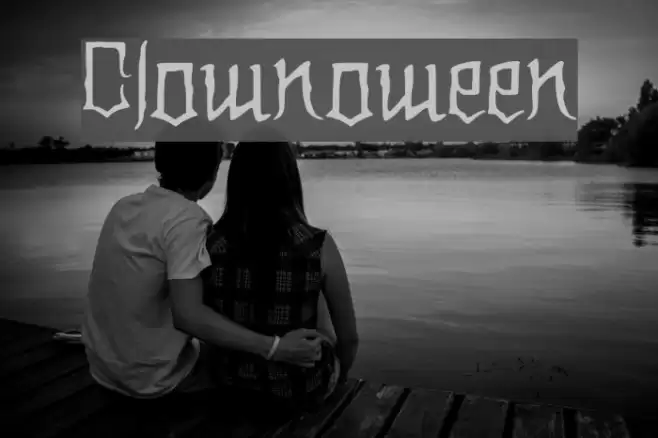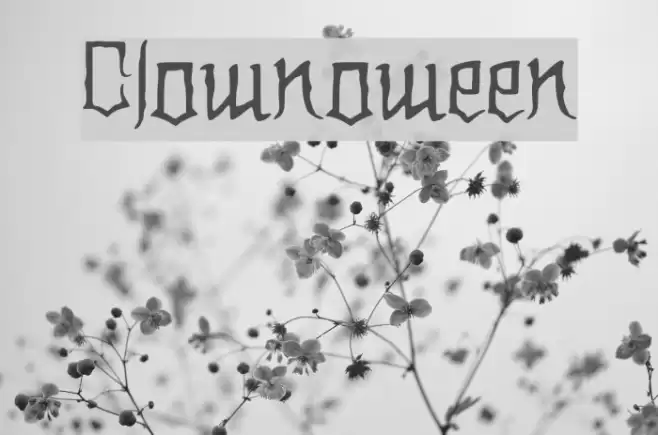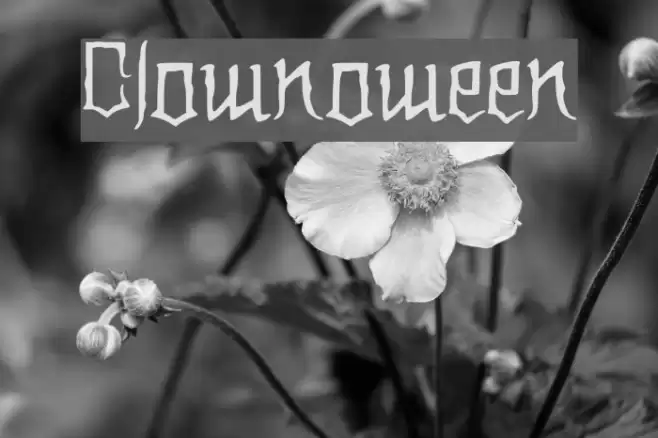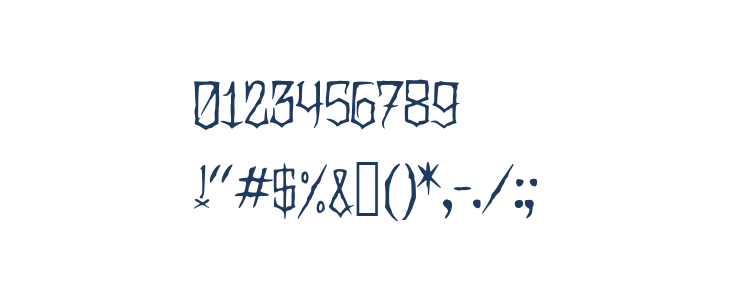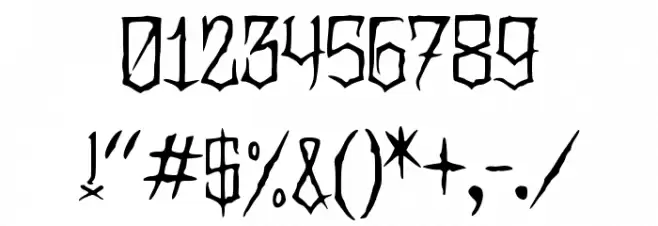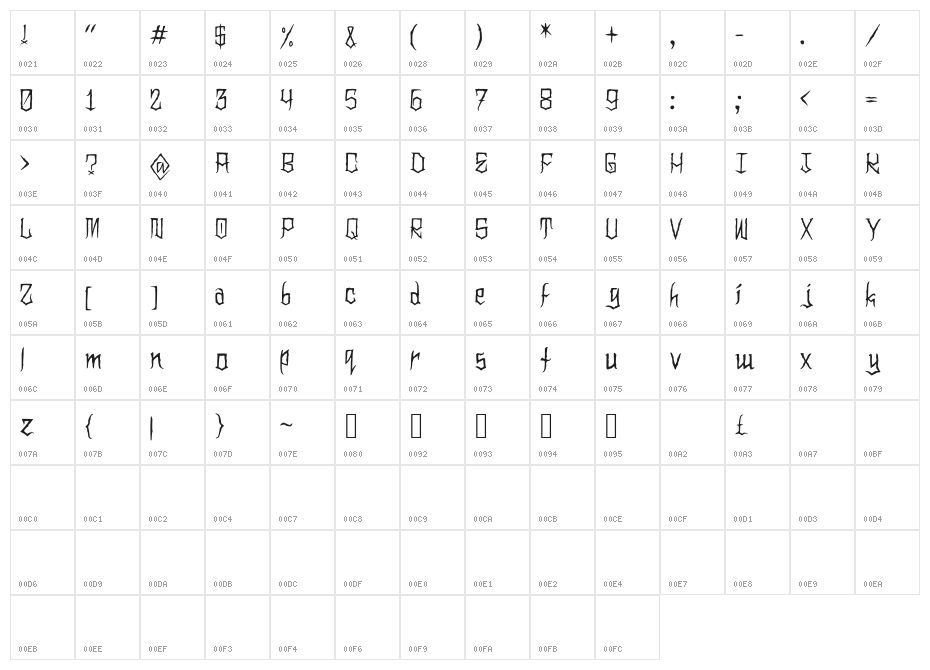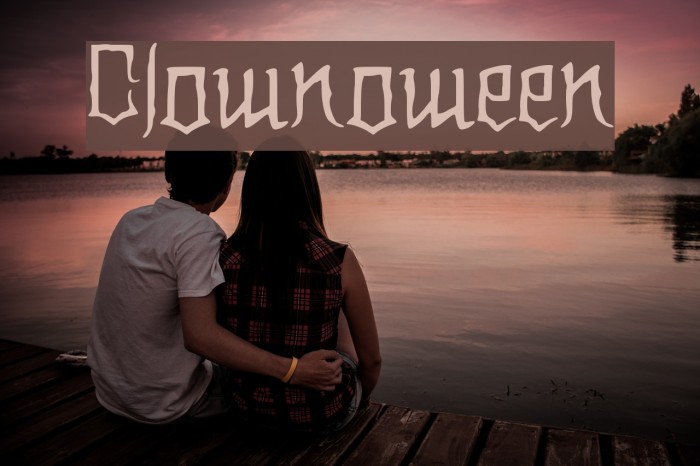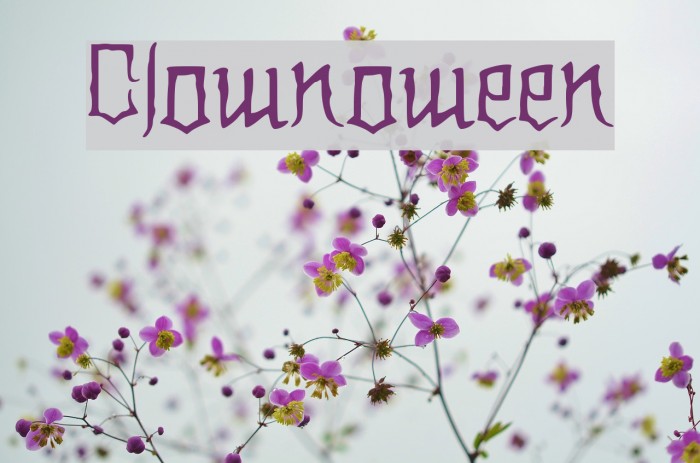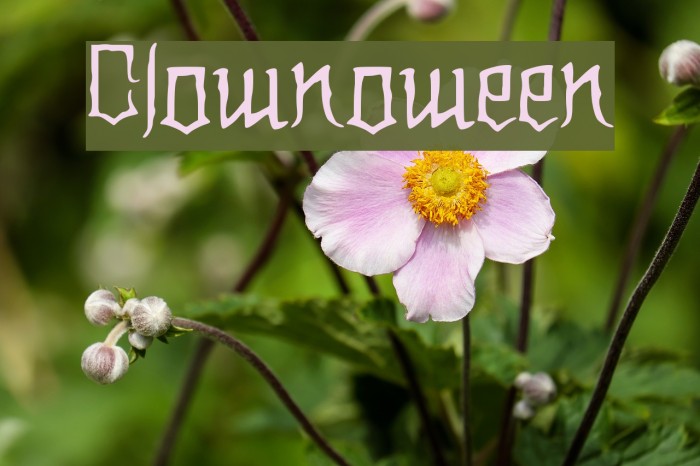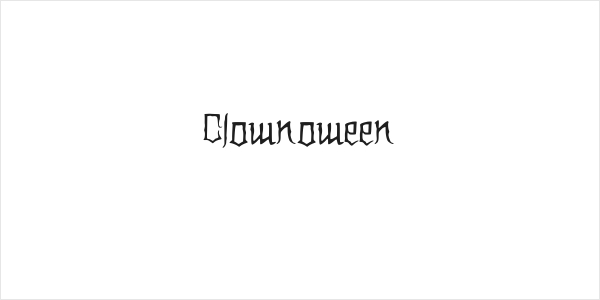
Clownoween Font
Clownoween Description
This font features a unique, jagged design that evokes a sense of mystery and playfulness, making it ideal for themes related to Halloween or carnival events. The characters have an irregular, hand-drawn appearance with sharp edges and pointed ends, creating a dramatic and eye-catching effect. The uppercase and lowercase letters maintain a consistent style, with a slightly gothic influence that adds to its eerie charm. Numbers and special characters are crafted with the same attention to detail, ensuring a cohesive look across all text elements.
A jagged, playful font with a gothic twist, perfect for spooky themes from Horror fonts.